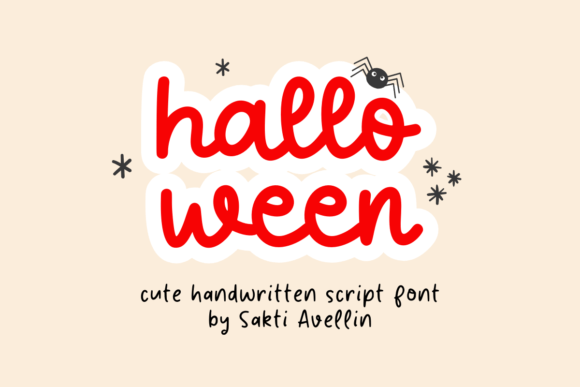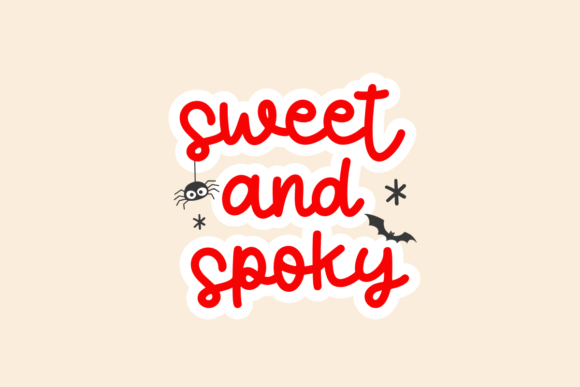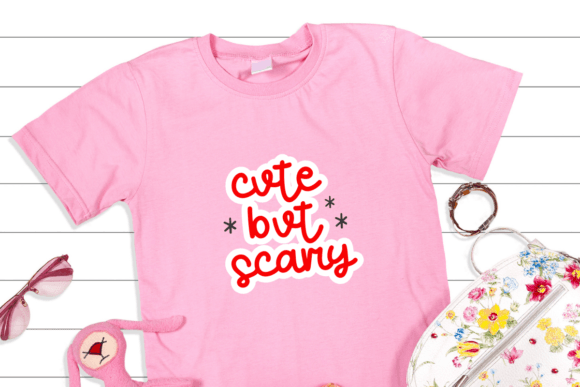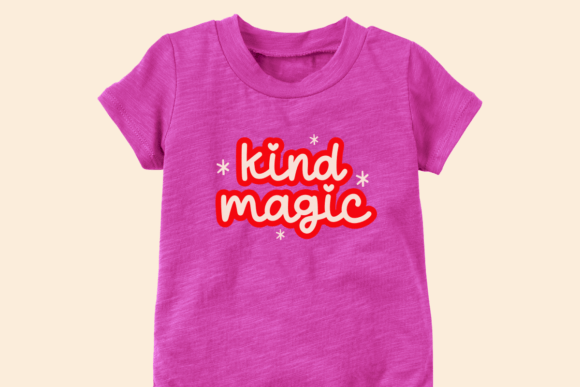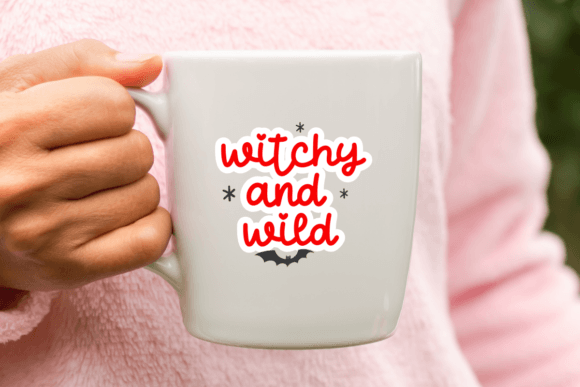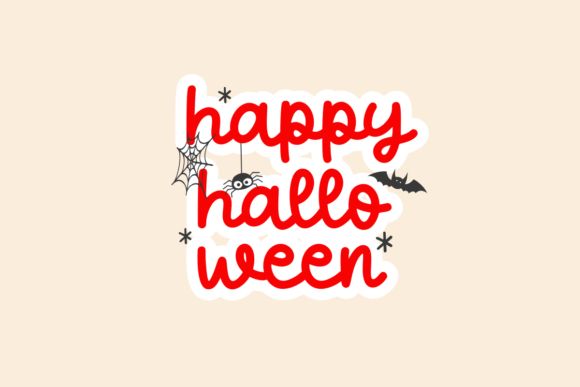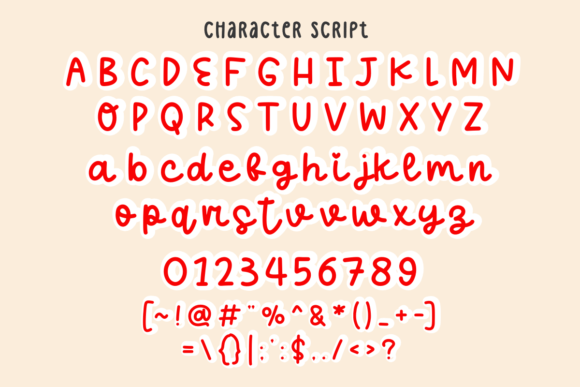
Halloween Font
Halloween, a charmingly handwritten font thriving with frightful flair. This playful typeface is a phenomenal fit for all things Halloween-related, adding an enchanting touch to every project. Be it T-shirts, tote bags, mugs, tumblers, or creatively crafted quotes, Halloween’s unique aesthetic brings an eerie elegance and whimsical witching hour ambiance. Plunge into the pumpkin patch of typography with this spine-chilling, whimsically wicked font!